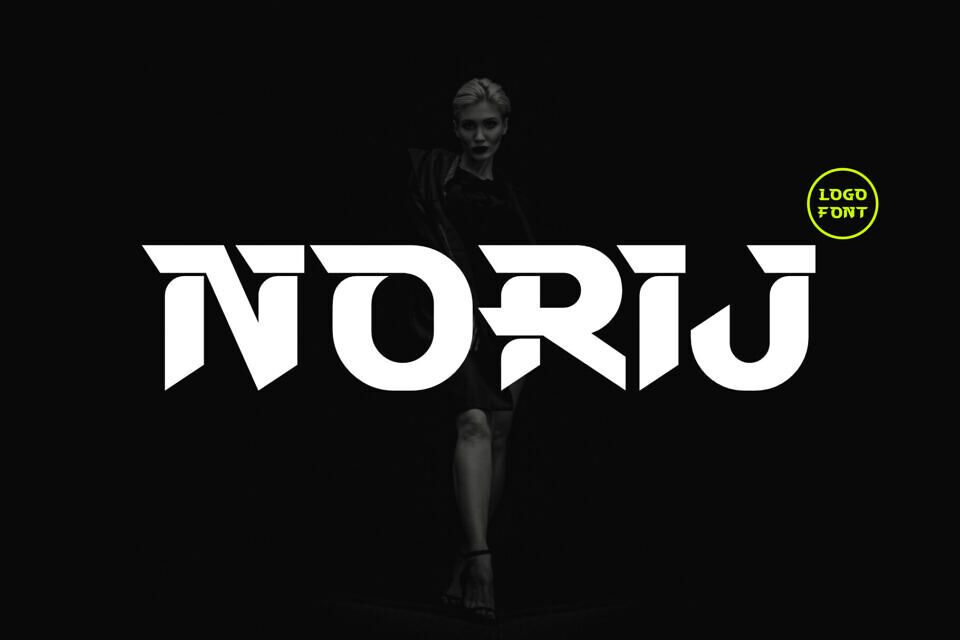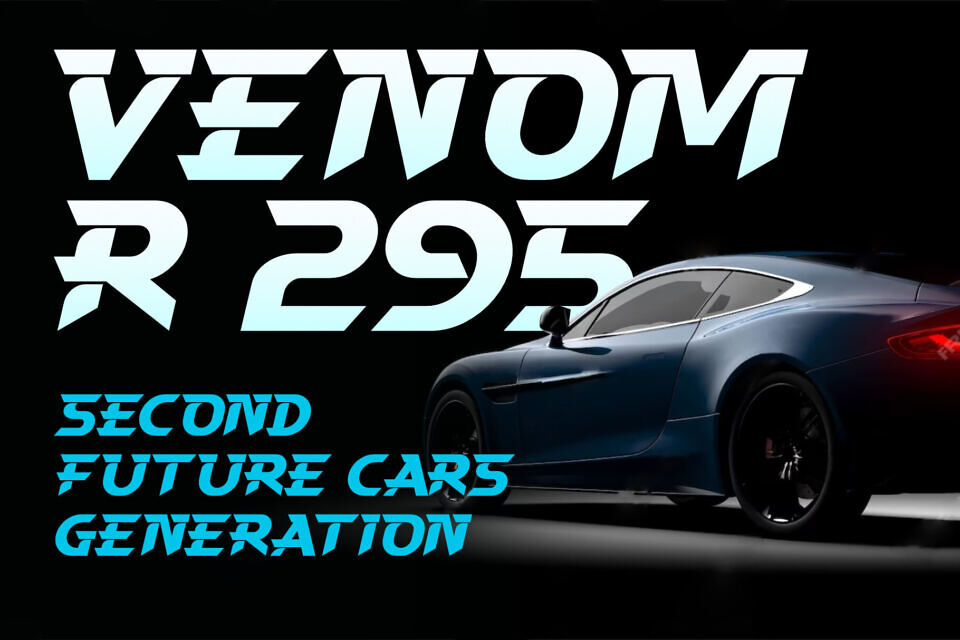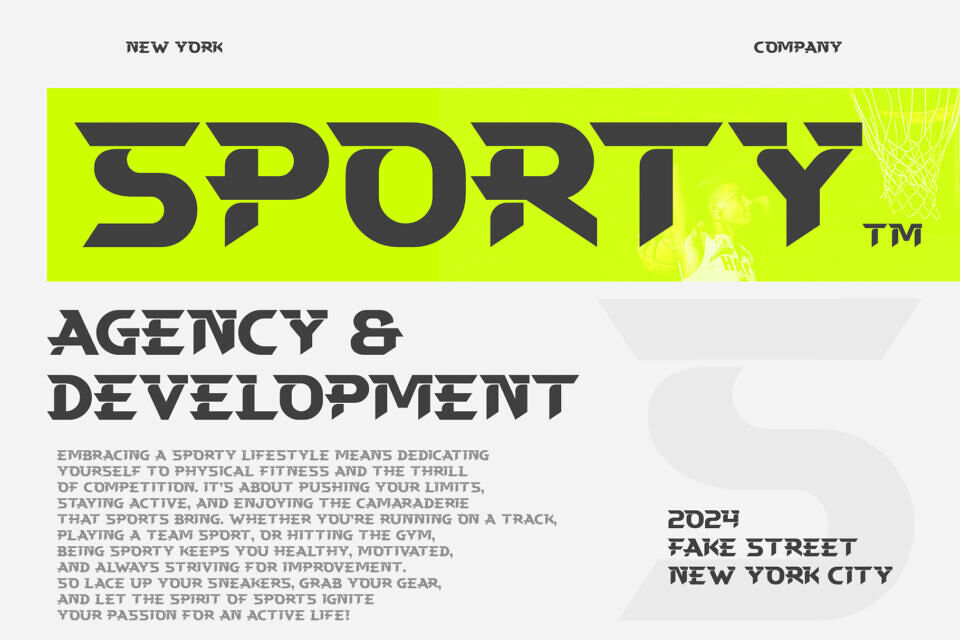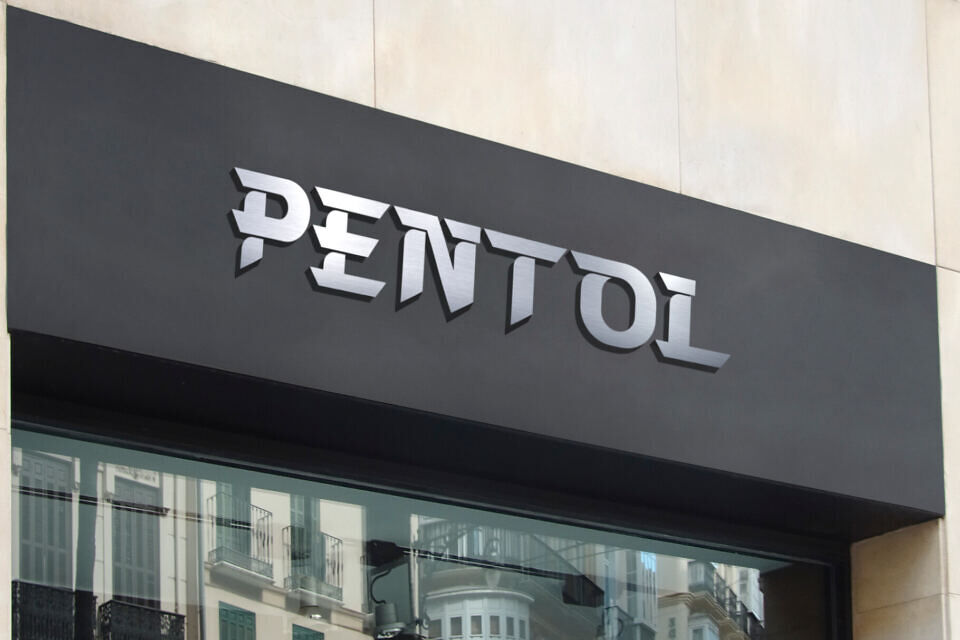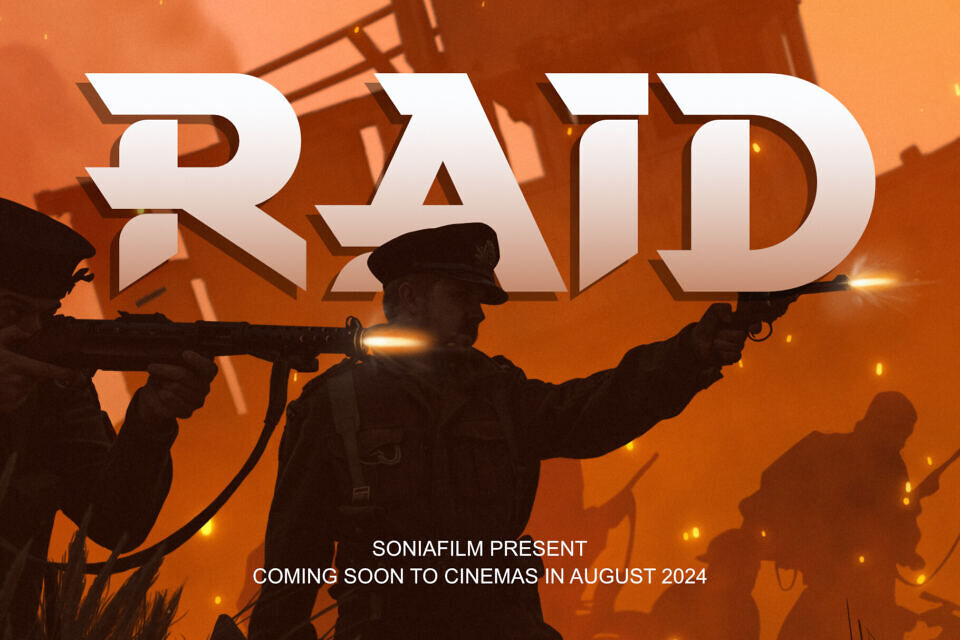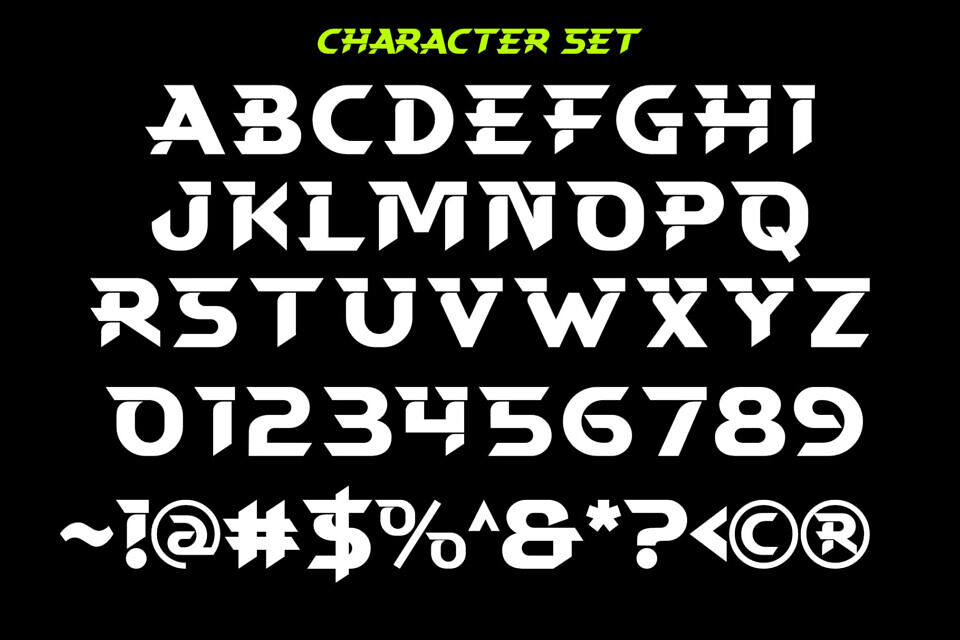
Norij Font
Introducing Norij, a sleek and modern logo font designed to elevate your brand’s identity. Norij is a versatile typeface that combines contemporary elegance with a touch of boldness, making it perfect for creating memorable and impactful logos.